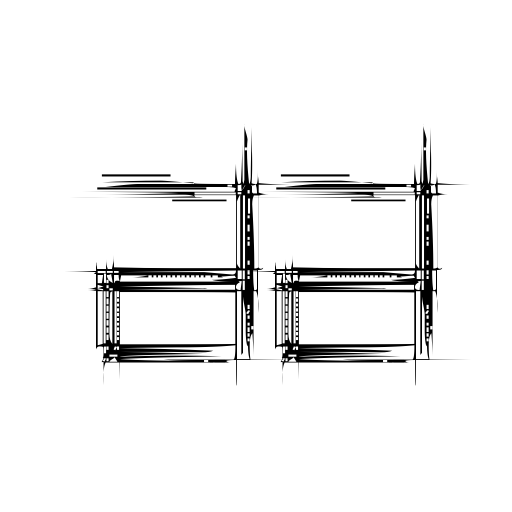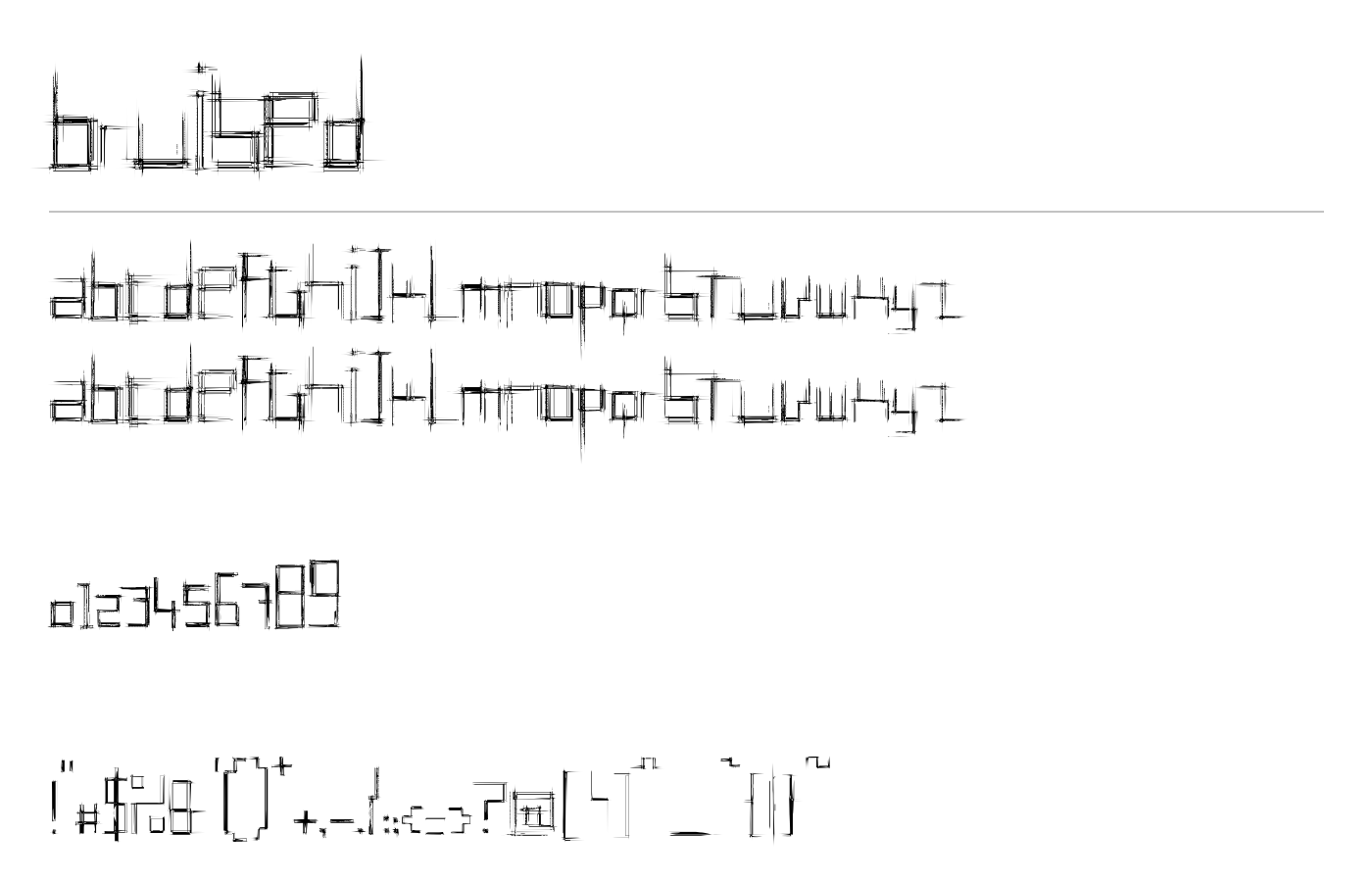
Bruised Font is a unique, distressed sans serif typeface characterized by its thin, sharp, and sketch-like strokes that create a raw, edgy texture reminiscent of worn or scratched surfaces. Its narrow width, moderate x-height, and uneven lines lend it a tense, urban, and experimental vibe, making it ideal for edgy branding, poster design, or creative projects seeking an unconventional and dynamic look. This font captures a bold, artistic energy while maintaining readability, perfect for making a striking visual impact in display use.
Bruised Font